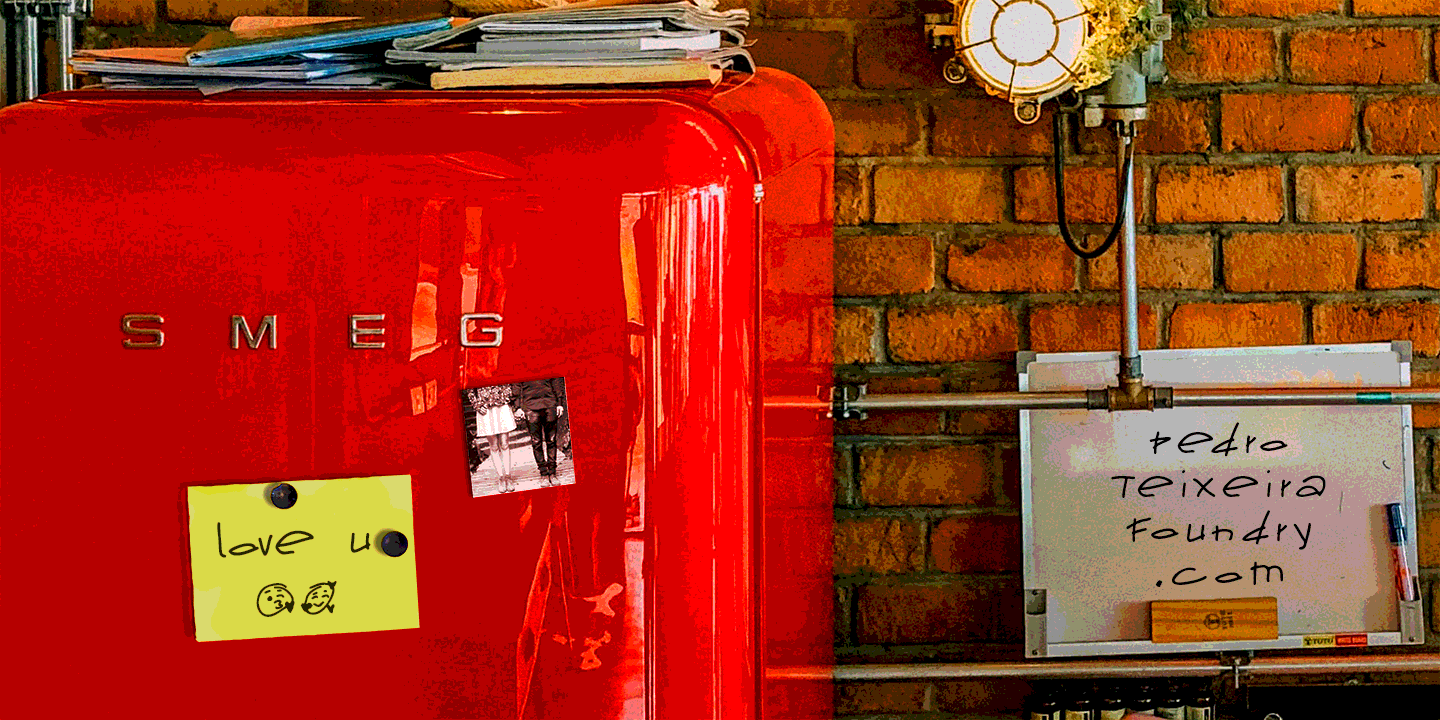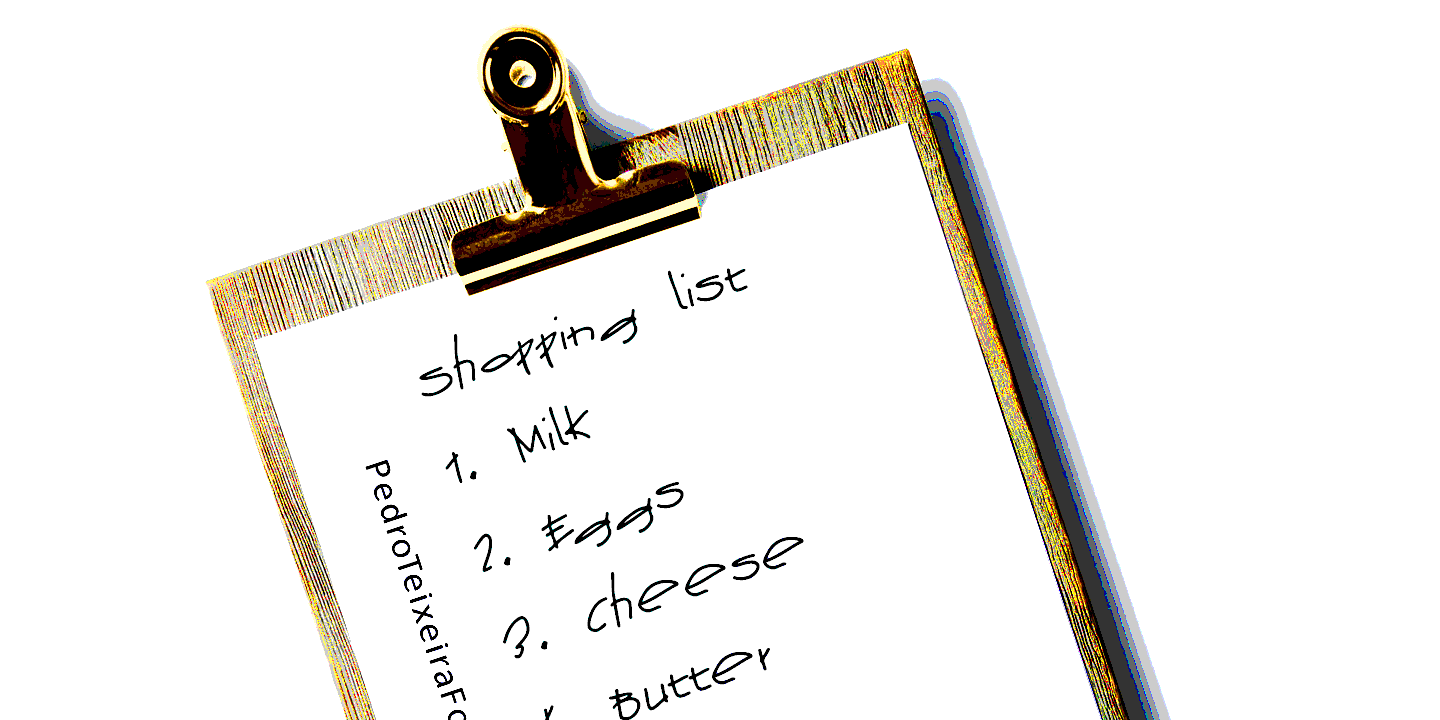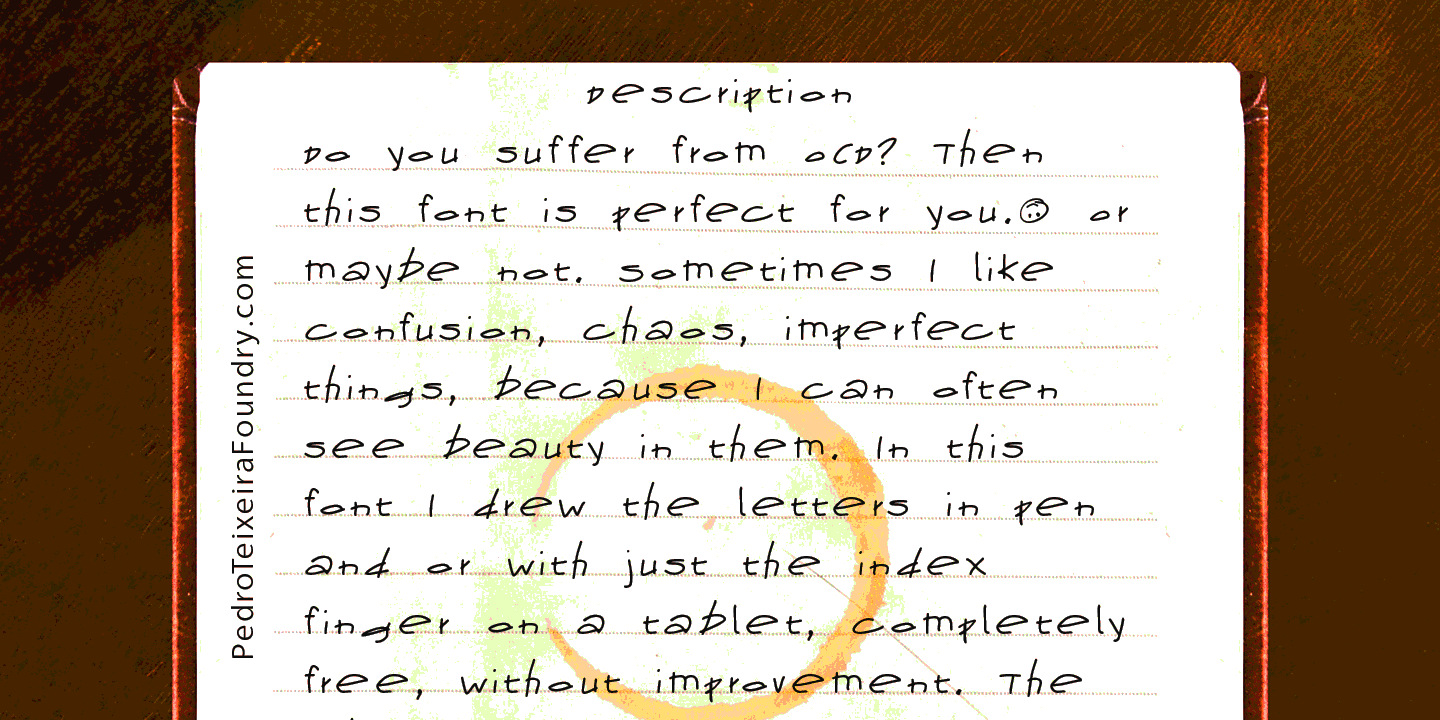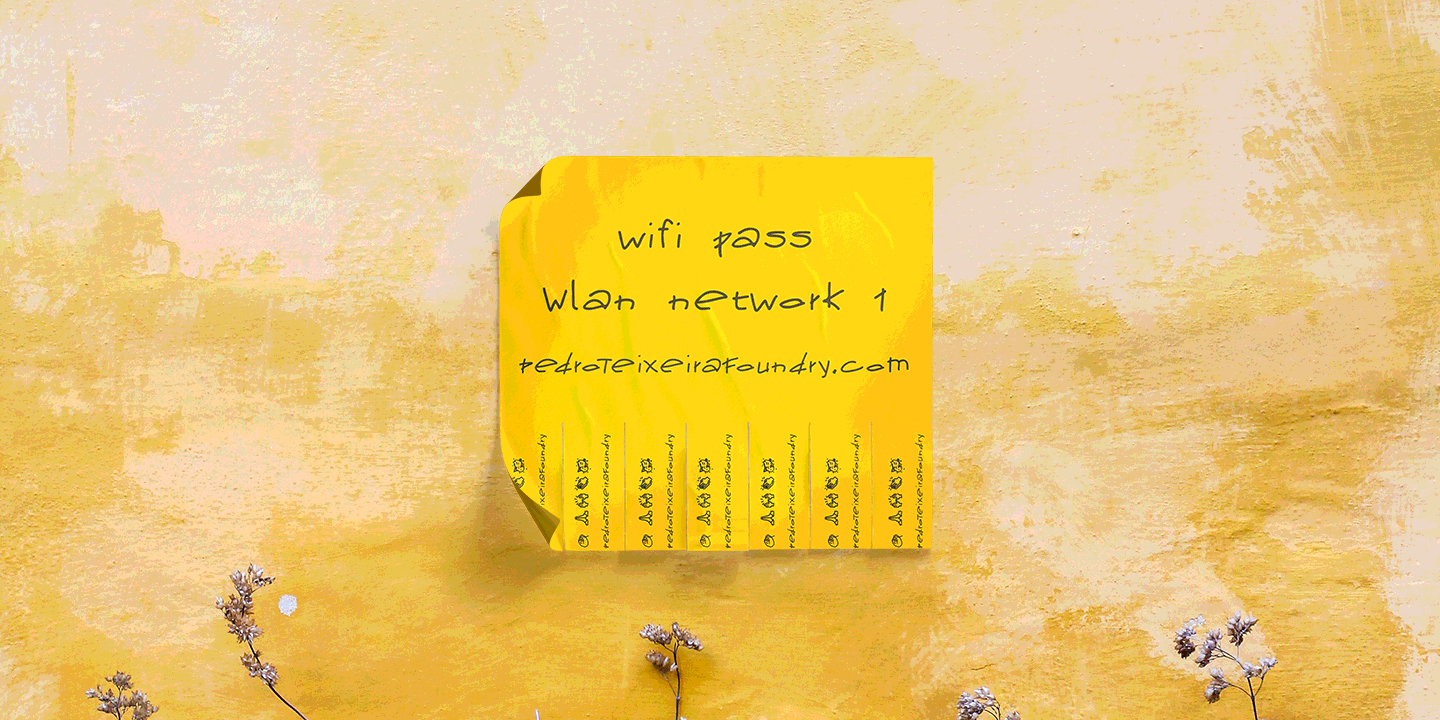
About Loose Pen
Do you suffer from OCD? Then this font is perfect for you. Or maybe not. Sometimes I like confusion, chaos, imperfect things, because I can often see beauty in them. In this font I drew the letters with a pen and or with just the index finger on a tablet,…